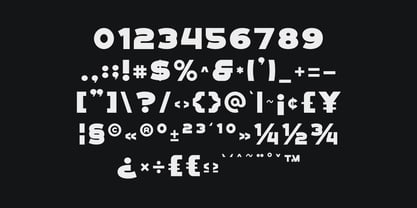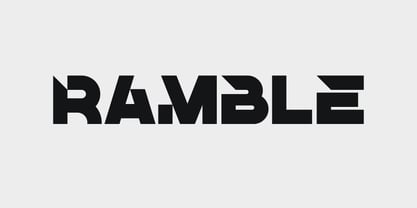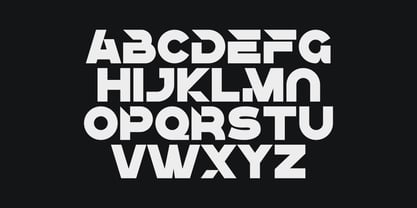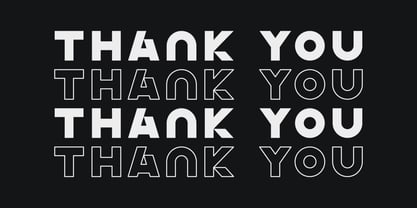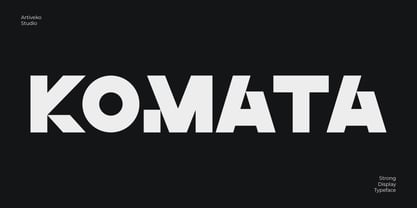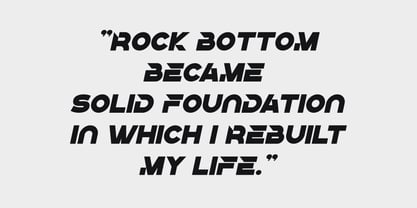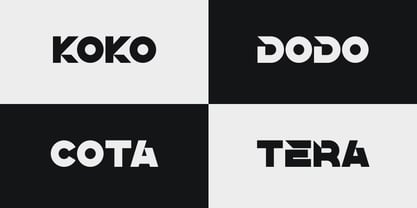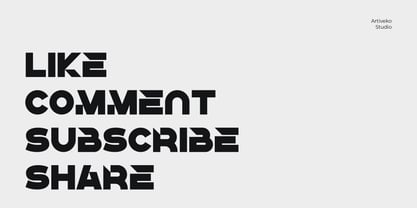
Komata
The Komata Font Family was designed by Iwan Alwan and published by Artiveko. Komata contains 2 styles and family package options. More about this family
Komata is a bold display typeface designed to create strong, confident, and modern visual impact. With solid letterforms, clean geometry, and balanced proportions, Komata delivers powerful typography that stands out in any composition. Perfect for headlines, posters, logos, branding, packaging, and advertising, Komata offers a bold presence while maintaining clarity and readability. Its modern structure makes it highly versatile across both print and digital design, from campaign visuals to brand identity systems. Komata is ideal for designers who want to communicate strength, confidence, and clarity through bold typography. Komata is not just a font — it’s a modern statement of power and precision.